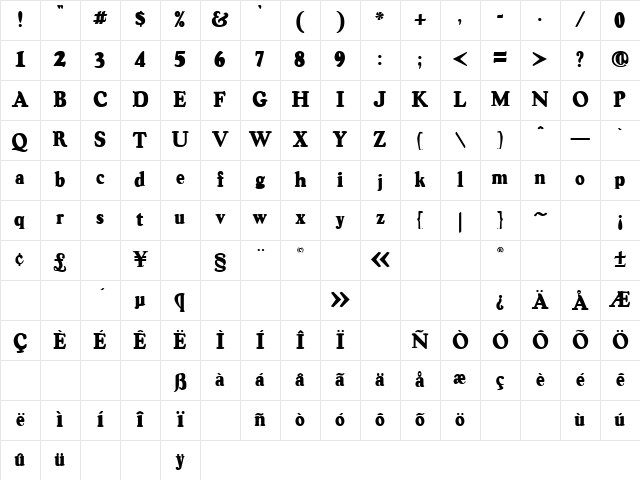
OSWALDblack Regular
OSWALDblack Family
Complete OSWALDblack Regular glyph index. Displaying only characters natively supported by OSWALDblack Regular font.
Design Context for OSWALDblack
OSWALDblack is a composed and adaptable typeface that performs quietly and consistently across a wide range of design contexts.